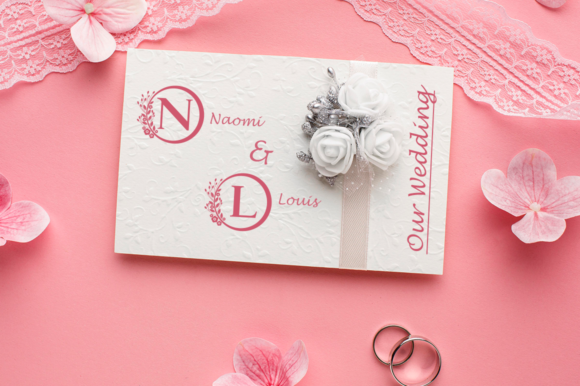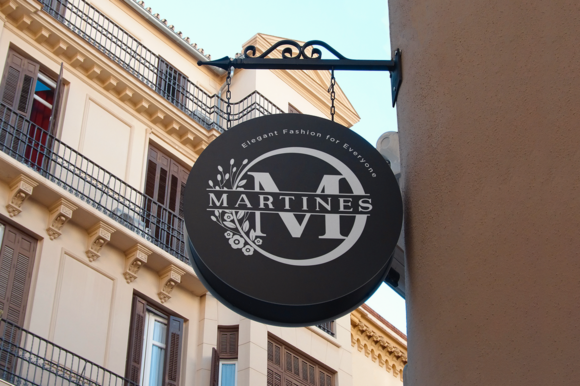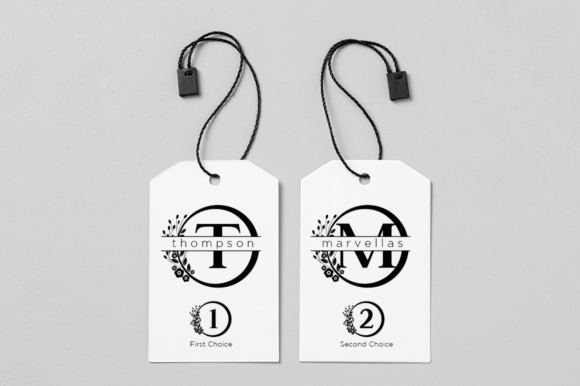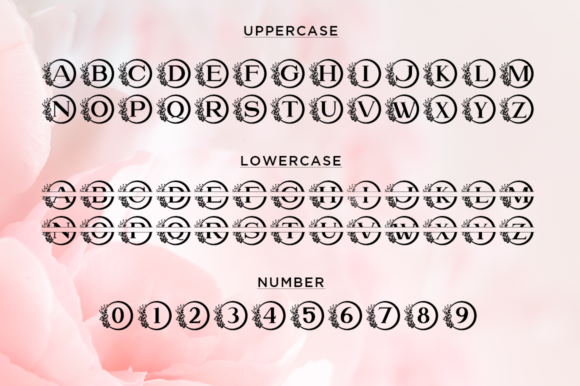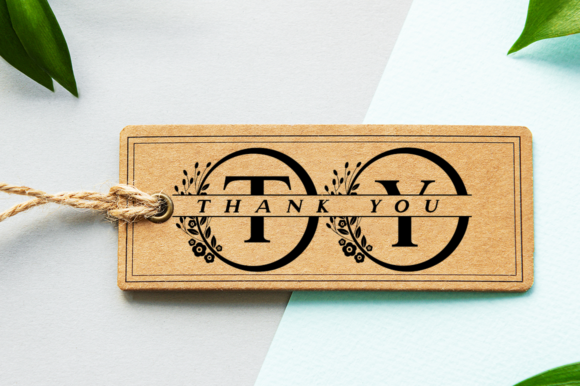
Beyond Monogram: The Perfect Font for Crafty Projects and More
Are you a designer, crafter, or DIY enthusiast looking for a unique and versatile font to elevate your projects? Look no further than Beyond Monogram, a fun and friendly decorative font with a beautiful floral theme. In this article, we’ll dive into the features and benefits of Beyond Monogram, and explore how it can be used in a variety of creative applications.
What is Beyond Monogram?
Beyond Monogram is a decorative font designed with a floral theme, perfect for adding a touch of elegance and whimsy to your projects. The font features beautiful details and minimal nodes, making it easy to read and use in a variety of contexts. Whether you’re creating a logo for your business, crafting a handmade card, or designing a DIY project, Beyond Monogram is the perfect choice.
Key Features of Beyond Monogram
- Floral theme: Beyond Monogram features a beautiful floral design, adding a touch of elegance and sophistication to your projects.
- Beautiful details: The font features intricate details and minimal nodes, making it easy to read and use in a variety of contexts.
- Versatile: Beyond Monogram can be used in a variety of creative applications, from crafting and DIY projects to logos and business branding.
Uses for Beyond Monogram
Beyond Monogram is a versatile font that can be used in a variety of creative applications. Here are just a few ideas to get you started:
- Crafting: Use Beyond Monogram to create handmade cards, gift tags, and other paper crafts.
- DIY projects: Add a touch of elegance to your DIY projects, such as wood signs, cutting boards, and other home decor items.
- Logo design: Use Beyond Monogram to create a unique and memorable logo for your business or brand.
- Decorations: Use Beyond Monogram to create beautiful decorations, such as garlands, banners, and other festive items.
Benefits of Using Beyond Monogram
There are many benefits to using Beyond Monogram in your projects. Here are just a few:
- Unique and memorable: Beyond Monogram is a unique and memorable font that will help your projects stand out from the crowd.
- Elegant and sophisticated: The font’s floral theme and beautiful details add a touch of elegance and sophistication to your projects.
- Versatile: Beyond Monogram can be used in a variety of creative applications, making it a great addition to your font library.
Tips for Using Beyond Monogram
Here are a few tips for using Beyond Monogram in your projects:
- Experiment with different sizes: Try using Beyond Monogram in different sizes to see how it looks in various contexts.
- Pair with other fonts: Experiment with pairing Beyond Monogram with other fonts to create a unique and interesting look.
- Use in combination with images: Use Beyond Monogram in combination with images or graphics to add an extra layer of interest to your projects.
Beyond Monogram is a fun and friendly decorative font with a beautiful floral theme. With its beautiful details and minimal nodes, it’s perfect for a variety of creative applications, from crafting and DIY projects to logos and business branding. Whether you’re a designer, crafter, or DIY enthusiast, Beyond Monogram is a great addition to your font library. So why wait? Download Beyond Monogram today and start creating beautiful projects that stand out from the crowd!